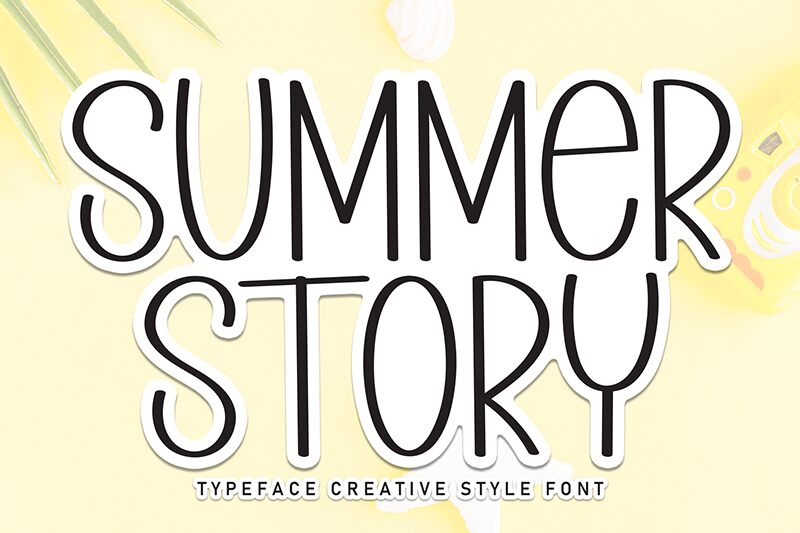
Summer Story
Summer Story font is a handwritten font with a light weight and condensed appearance from Scratchones. The font’s aesthetic is relaxed and approachable, making it have a casual tone of voice. Lines of the typeface are slightly irregular, as if being made by hand. This gives the letters youthful vibes which work great for joyful and fun projects.
Possible ways to use it include book covers design, poster making, headings and subheadings of editorial designs like magazines or books, social media posts design, websites & blogs projects and many other graphic designs. The handwriting style also makes it very suitable for packaging design projects as well as logos or branding ones too!